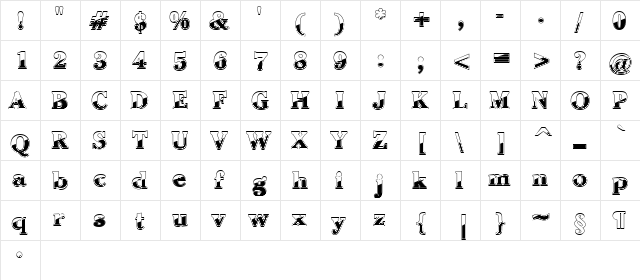
Chell Chrome Bold
Design Context for Chell Chrome Typeface
Chell Chrome is a composed and adaptable typeface that performs quietly and consistently across a wide range of design contexts. The heavy weight commands attention and anchors typographic hierarchies.